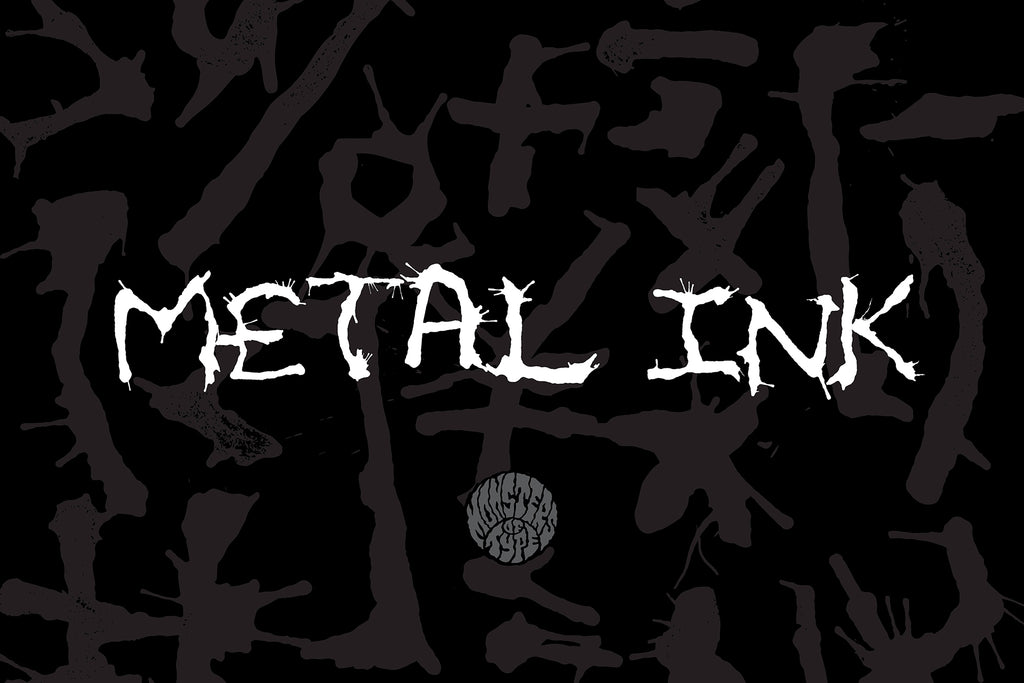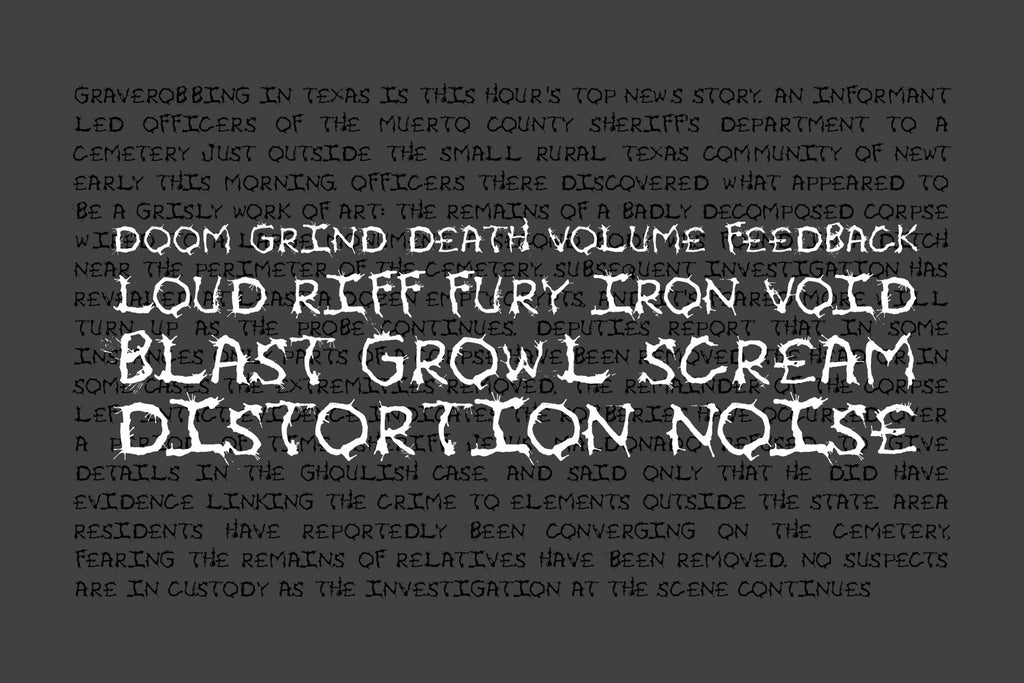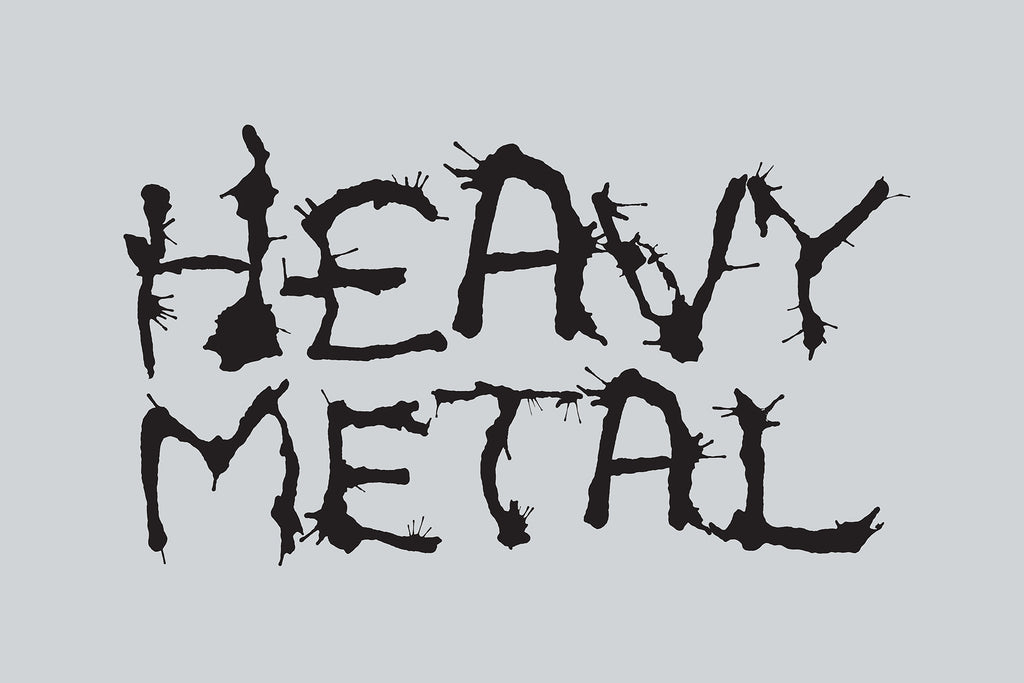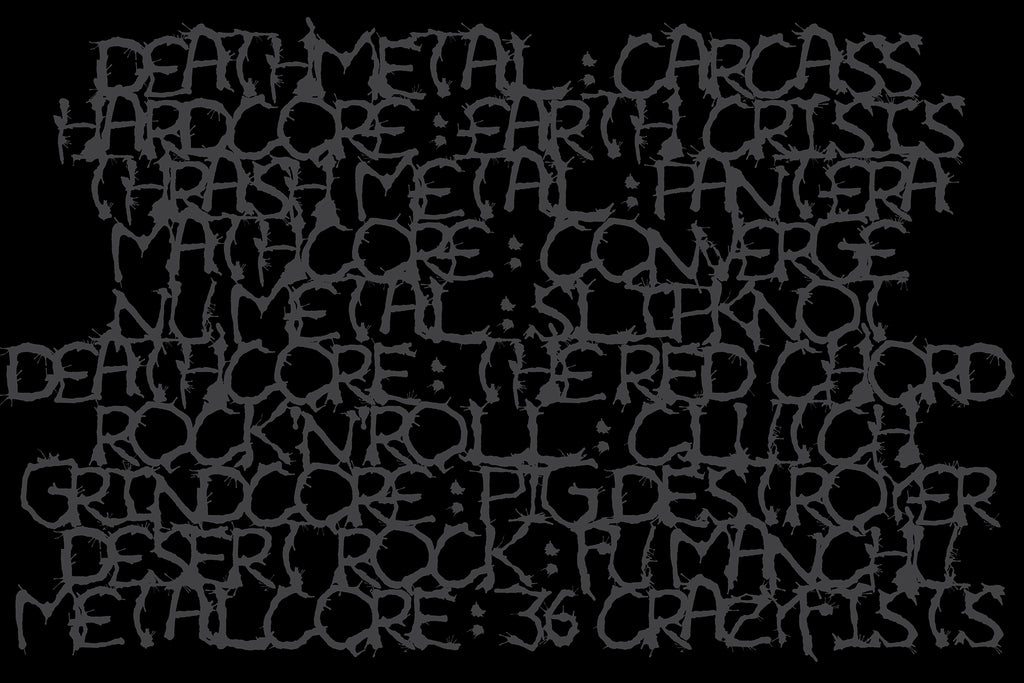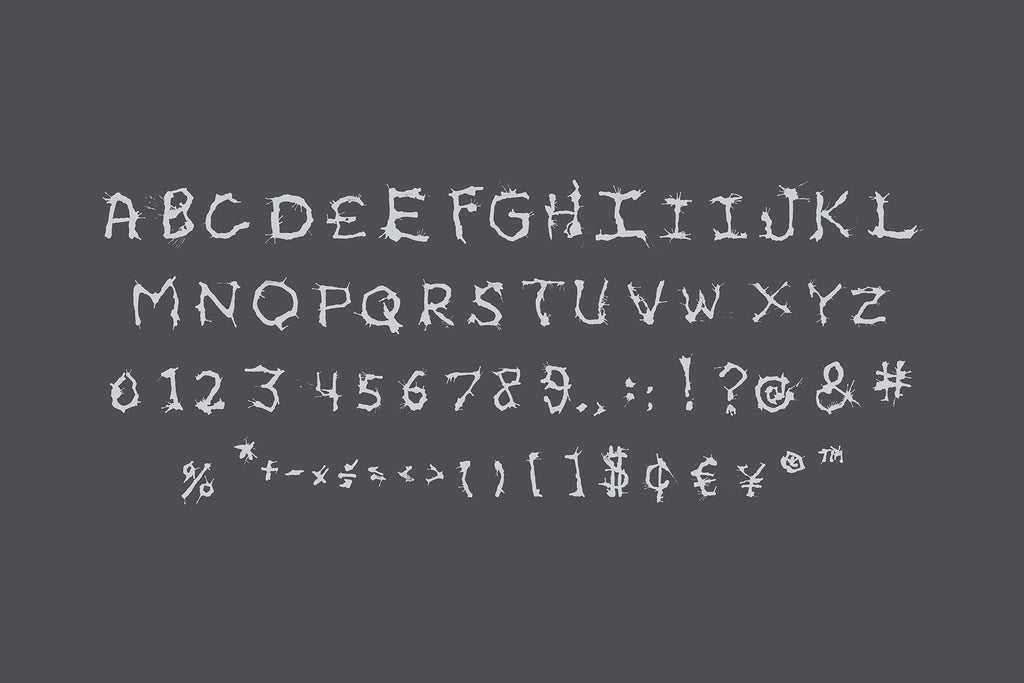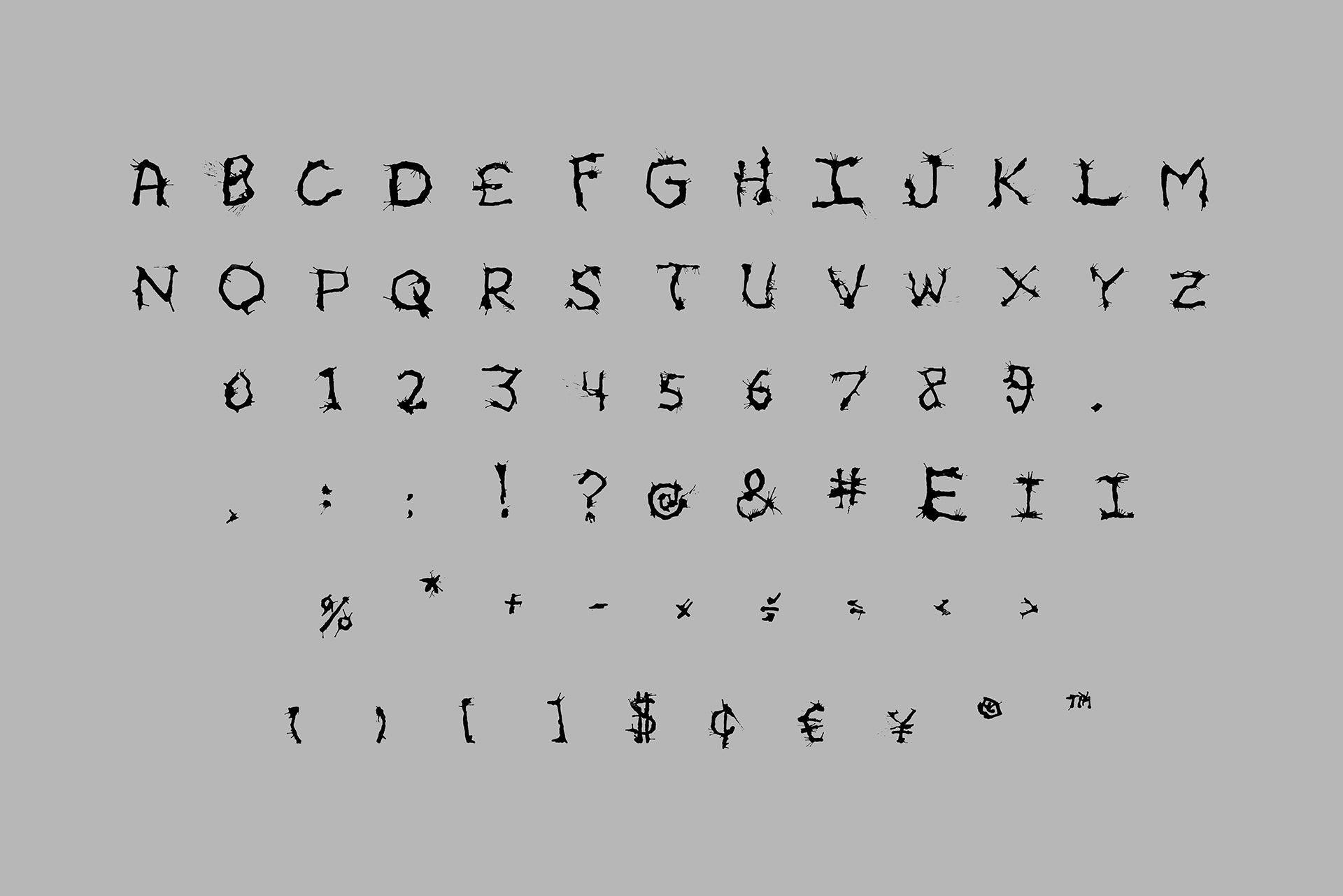
Metal Ink Typeface
Metal Ink is a raw, expressive display typeface born from breath, chance, and black India ink. Each character was created by blowing ink through a small straw onto individual 2”x2” cards, resulting in splintered edges, spontaneous textures, and aggressive forms. No two strokes behave the same, giving the font a visceral, handmade energy that feels alive and unstable. Perfect for music merch, underground posters, horror titles, experimental branding, and projects that demand imperfection with intent.